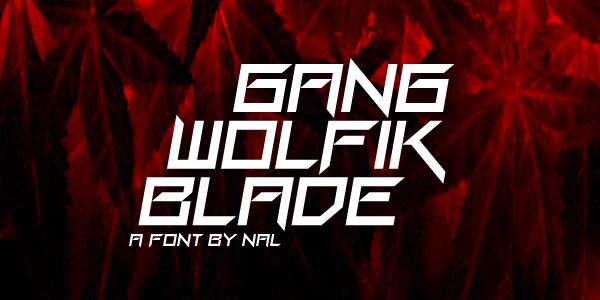
Gang Wolfik Blade by Andrew McCluskey is a free modern Gothic display font with a hard, futuristic profile. Broad geometric letters combine squared frames, blade-like diagonals, and abrupt notches in a dense, driving line.
Its aggressive geometry suits science-fiction game graphics and industrial music packaging: one reads as technological, the other as confrontational. It also fits motorsport merchandise and event posters. In a logo or game interface, the repeated cuts can form an emblematic border as well as lettering.
Gang Wolfik Blade by Andrew McCluskey is a free modern Gothic display font.